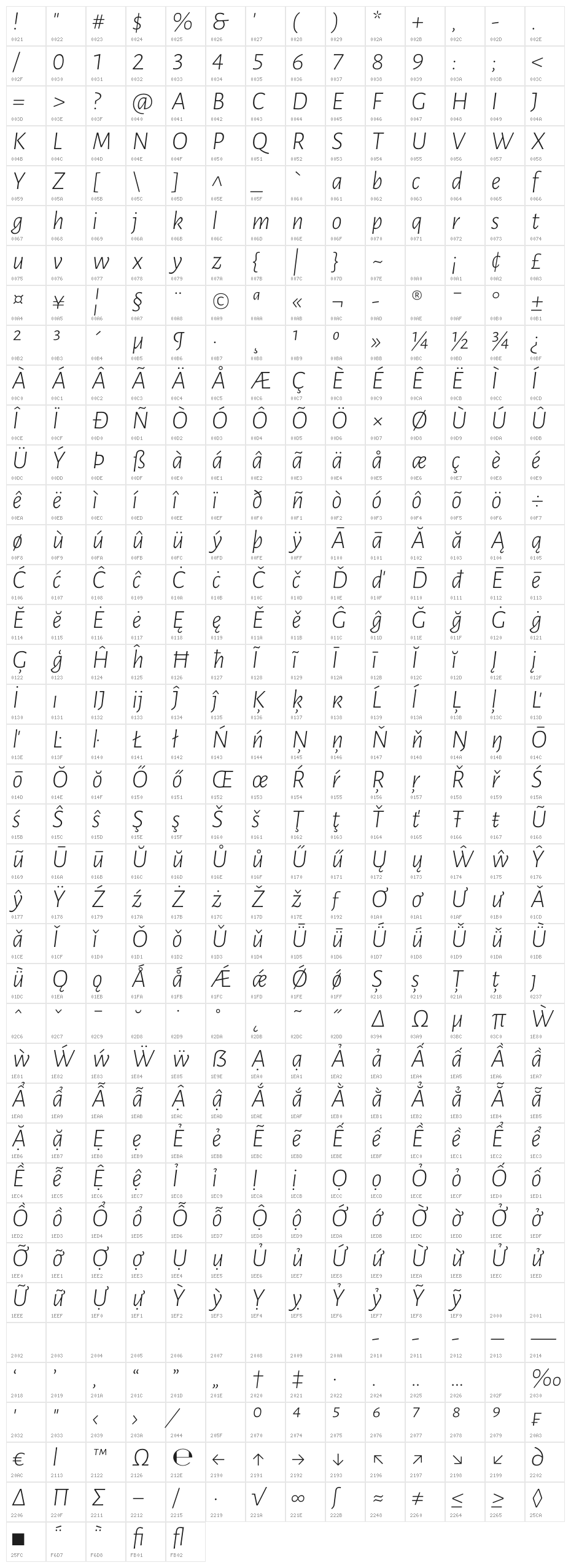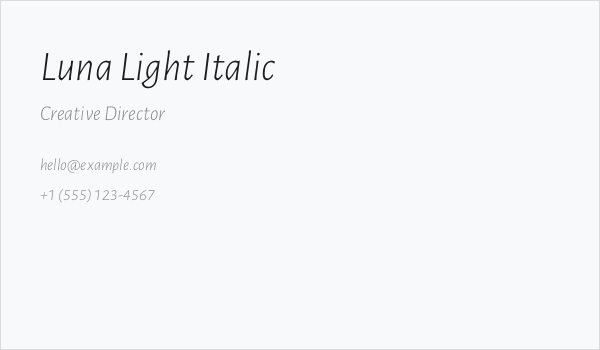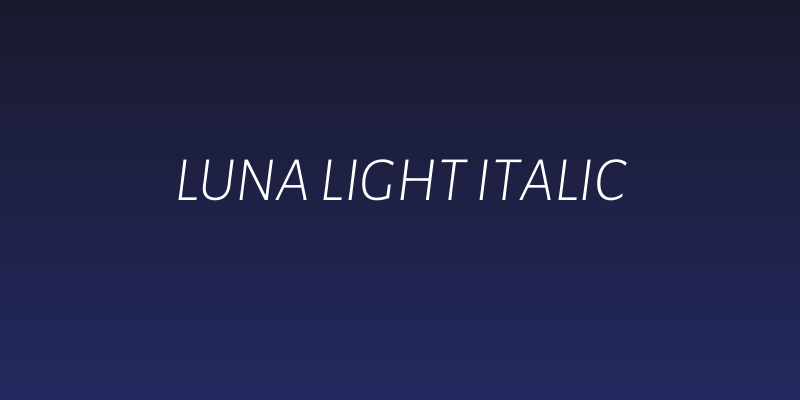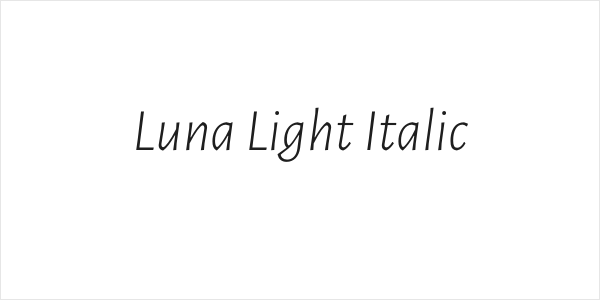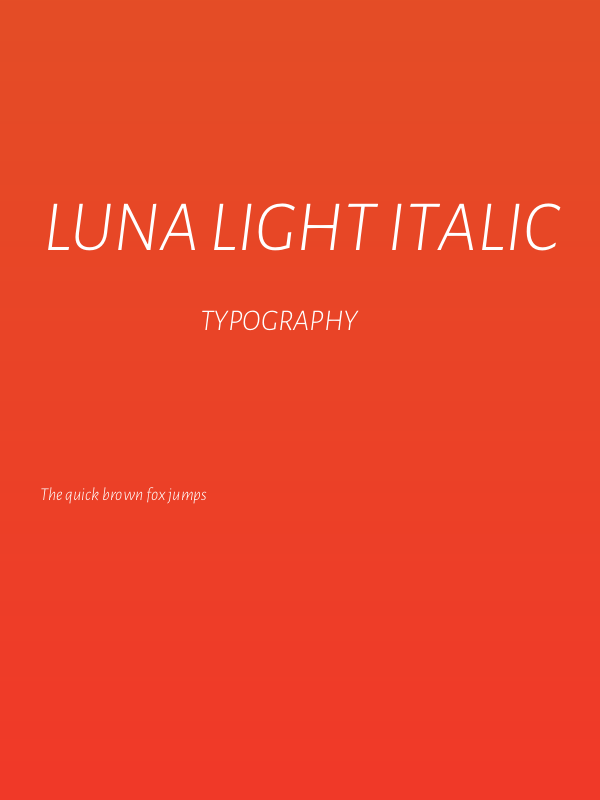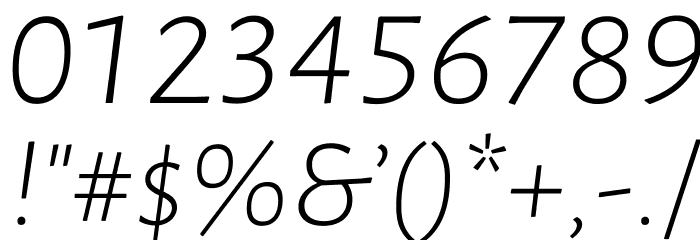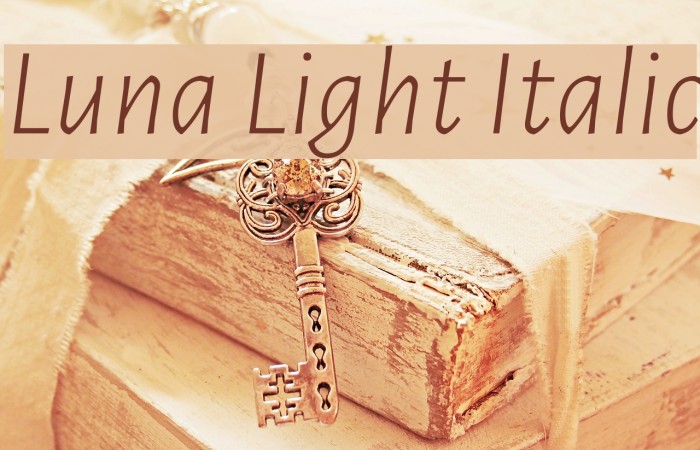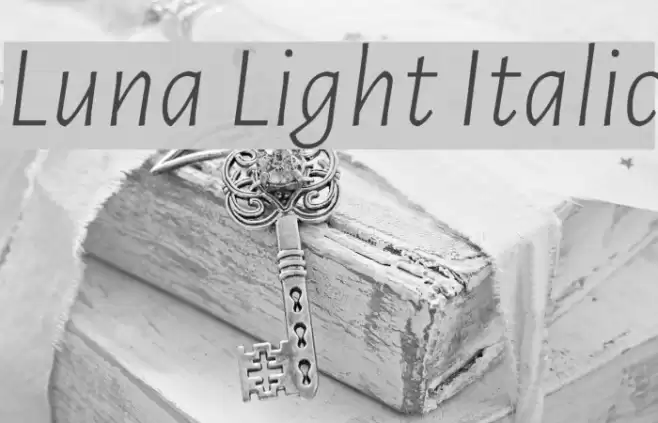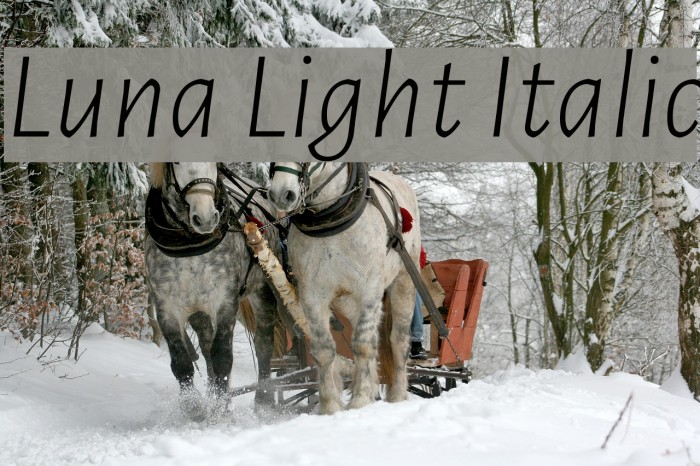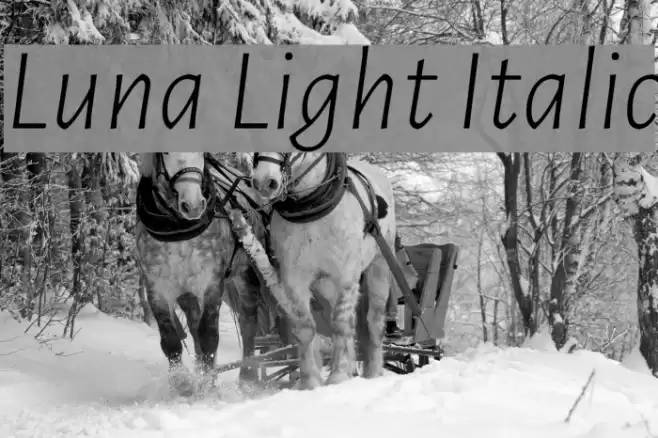
Luna Light Italic Font
Luna Light Italic Description
This font features a sleek and elegant design with a light and airy feel. The characters are slightly slanted, giving it an italicized appearance that adds a touch of sophistication. The strokes are thin and consistent, contributing to a clean and modern look. The uppercase letters are tall and narrow, while the lowercase letters maintain a balanced proportion, enhancing readability. The numerals are clear and distinct, matching the overall style of the alphabet. Special characters are well-integrated, maintaining the font's cohesive aesthetic. This font is versatile, suitable for both digital and print media.
| Use Case | Headlines, Body text, Logos |
| Proposed Projects | Ideal for fashion magazines, elegant invitations, modern branding, and minimalist websites. |